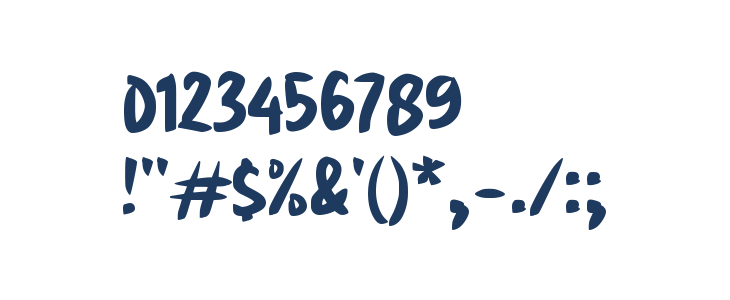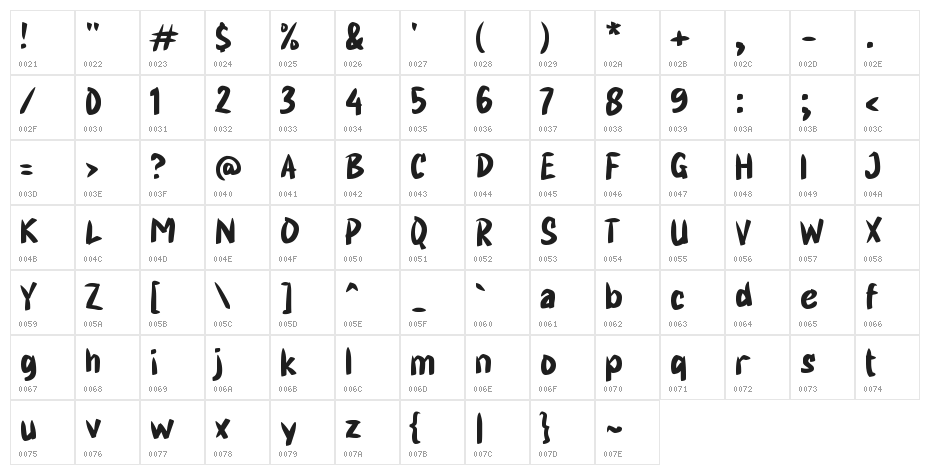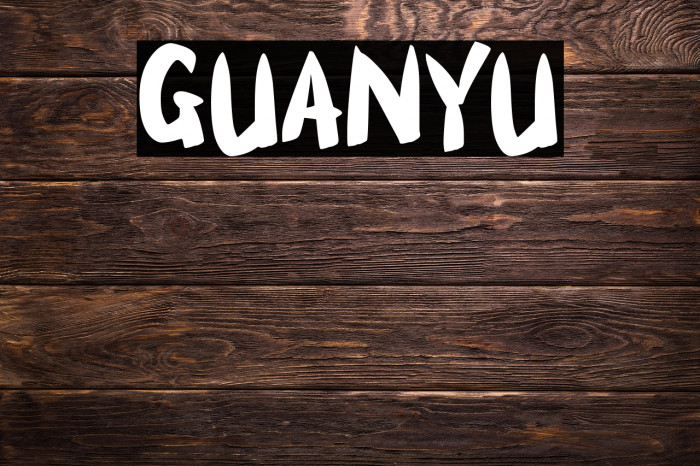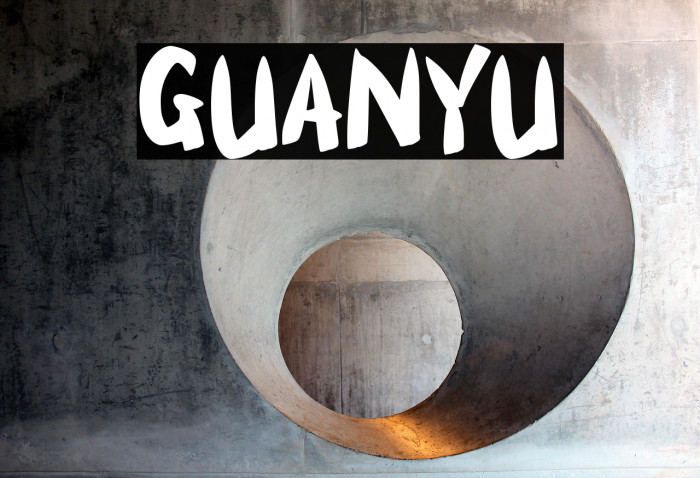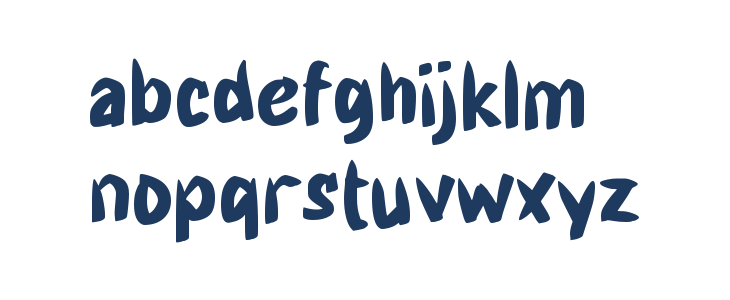
GUANYU Font
GUANYU Description
This font features a bold and playful handwritten style, characterized by its thick strokes and slightly irregular shapes that give it a casual and energetic feel. The uppercase letters are robust and dynamic, while the lowercase letters maintain a consistent flow with rounded edges. The numerals are bold and easily distinguishable, complementing the overall lively aesthetic. Special characters are creatively designed, adding to the font's versatility. Its informal and friendly appearance makes it suitable for projects that aim to convey a sense of fun and approachability.
| Overall Style | Playful |
| Proposed Projects | Ideal for children's books, greeting cards, playful branding, and social media graphics. |